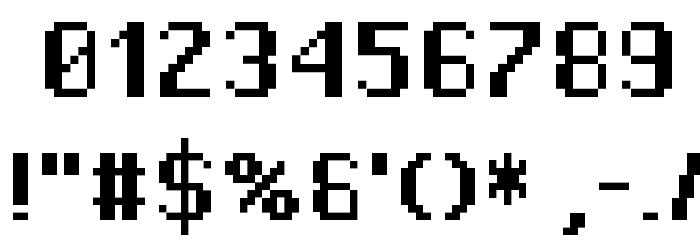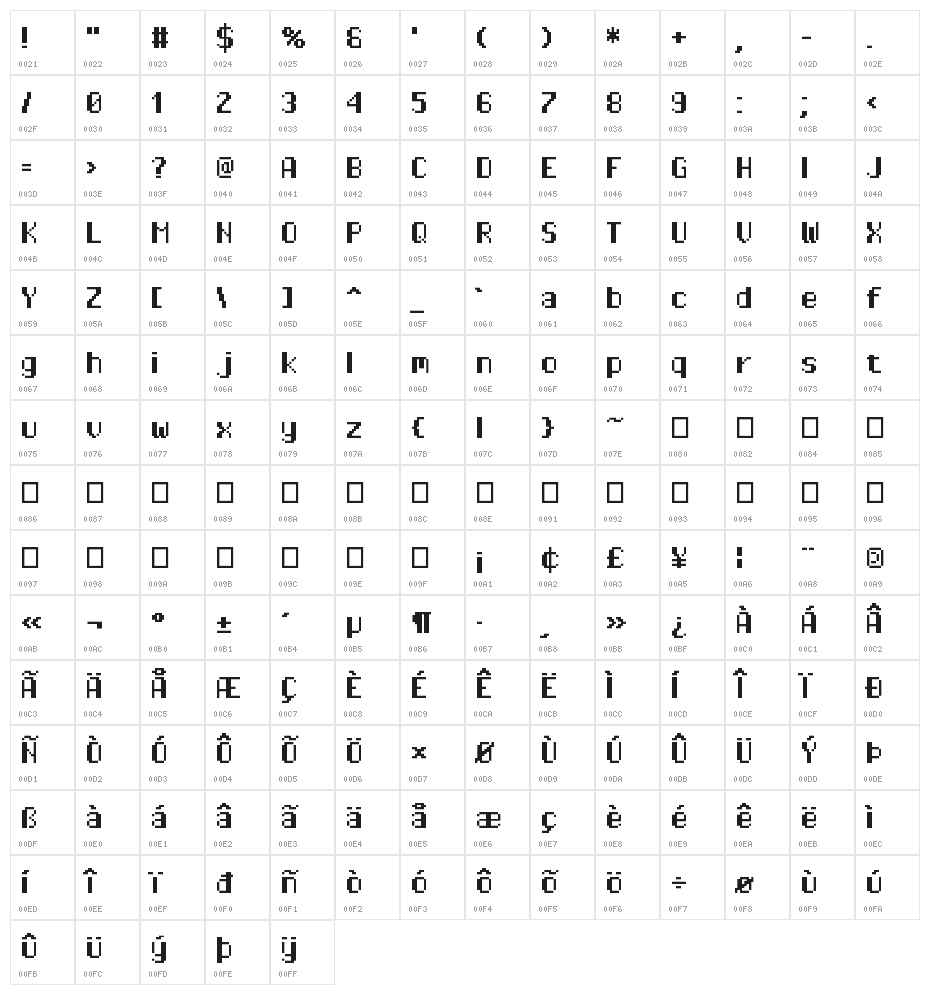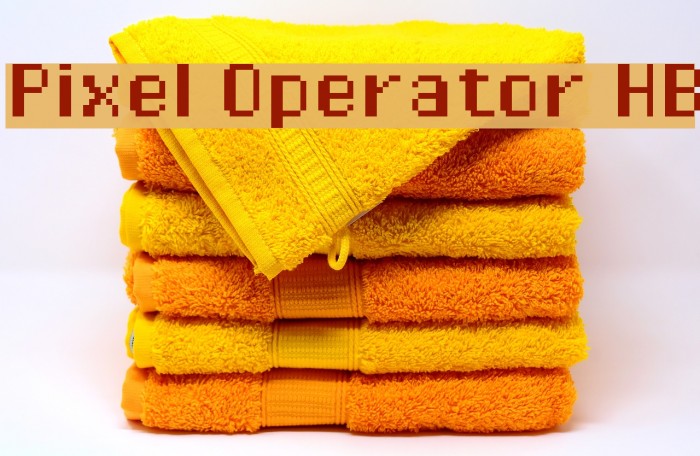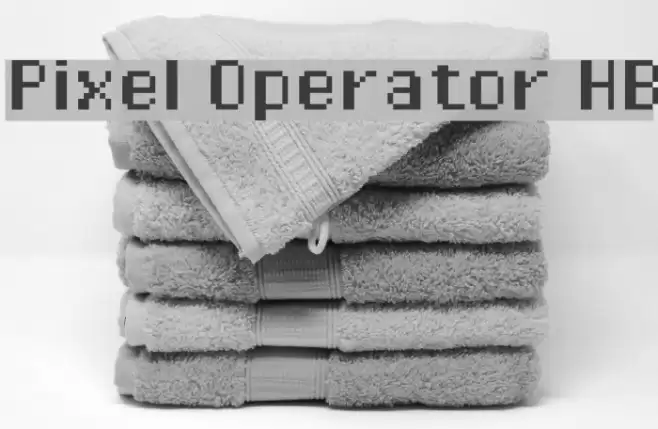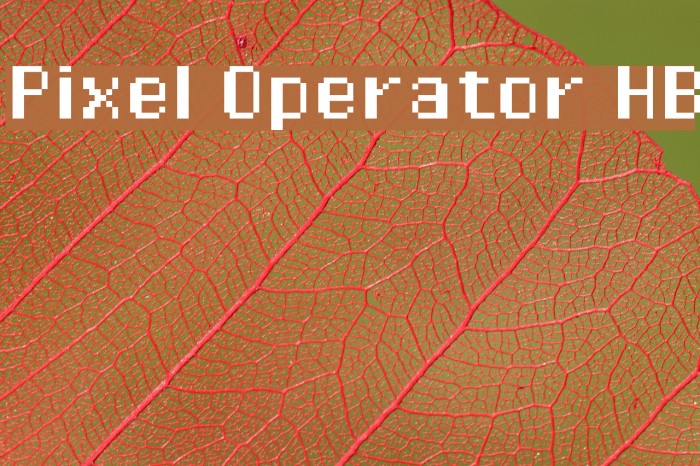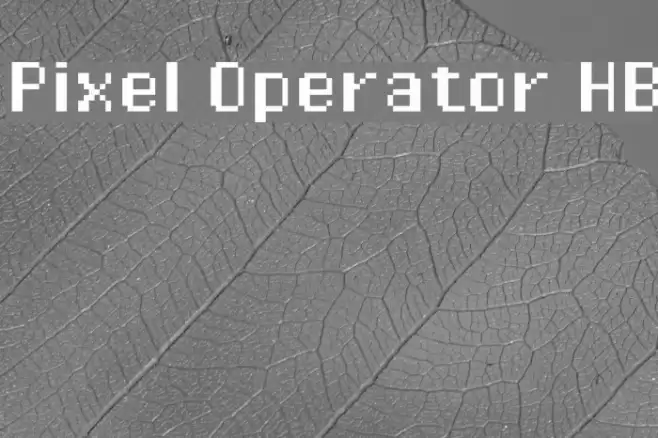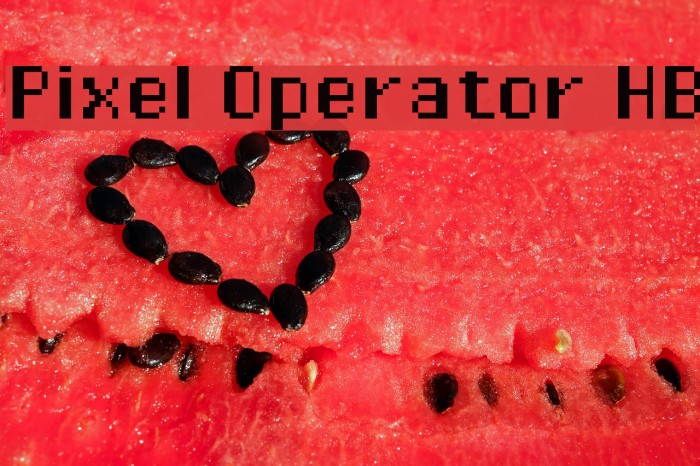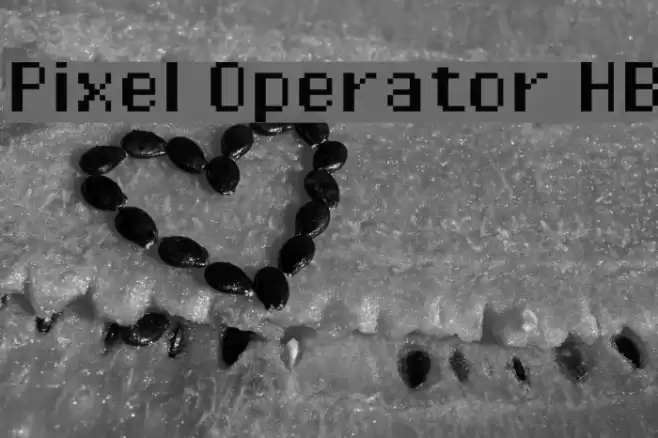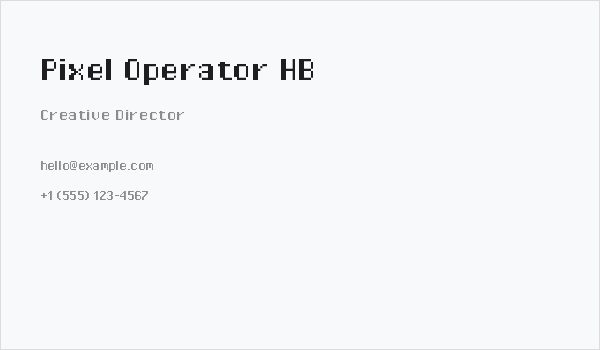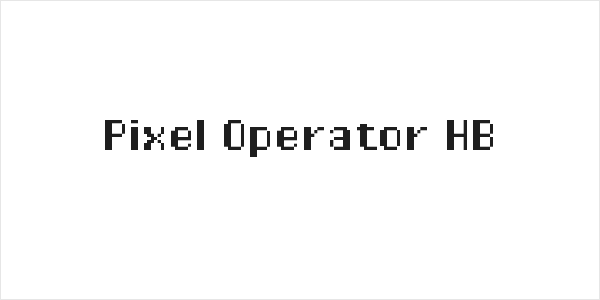
This font embodies a retro, pixelated style reminiscent of early digital displays and classic video games. Each character is constructed with a blocky, grid-like appearance, giving it a distinct, nostalgic feel. The uppercase and lowercase letters maintain a consistent height, contributing to a uniform and orderly aesthetic. Numbers and special characters follow the same pixelated design, ensuring a cohesive look across all glyphs. The font's simplicity and clarity make it highly legible, even at smaller sizes, while its unique style adds a playful and vintage charm. This font is ideal for projects that aim to evoke a sense of nostalgia or pay homage to the digital aesthetics of the past.
| Use Case | Headlines, Logos, Digital Art |
| Proposed Projects | Ideal for retro video games, digital art projects, vintage-themed posters, and any design that seeks to capture the essence of early digital displays. |